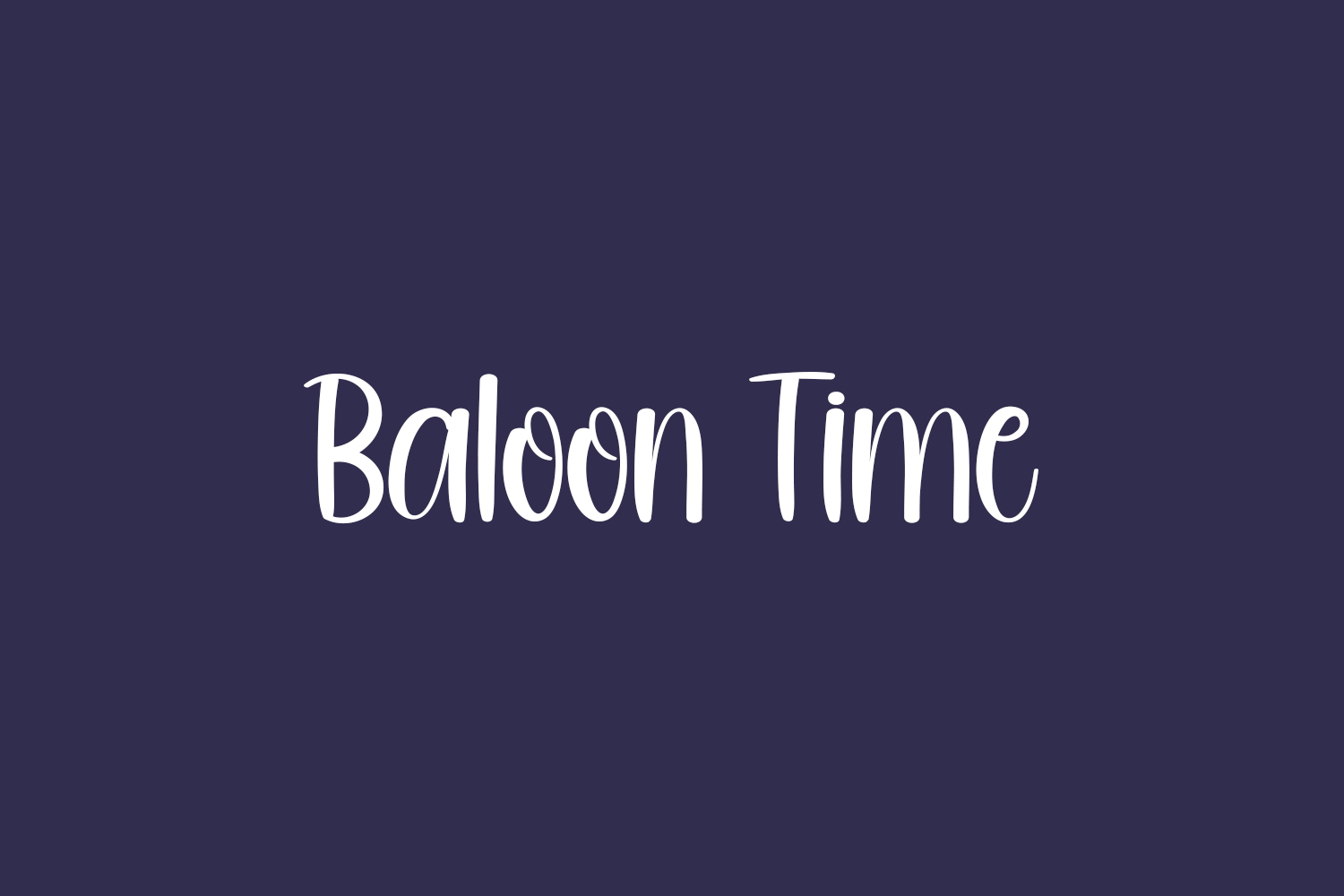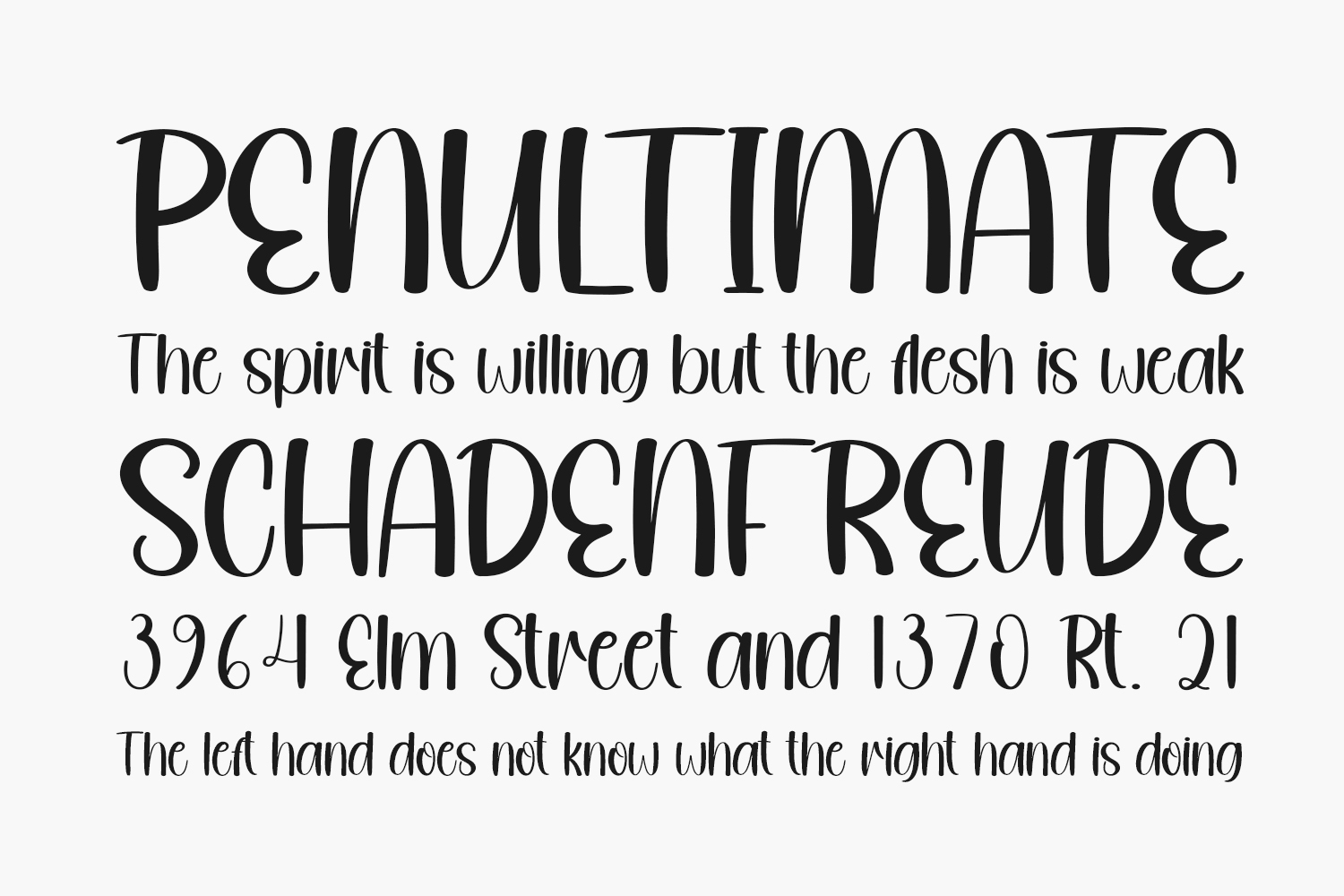
Baloon Time is a charming and playful handwritten font designed by Andi Moz with sweet, rounded strokes that bring a lighthearted and informal vibe to your design projects. This free display typeface mimics natural hand-drawn lettering — making it perfect for children’s books, greeting cards, party invitations, and any design needing a cheerful, friendly tone. Available in OTF format with support for uppercase letters, numerals, punctuation, and basic special characters, Baloon Time is ideal for designers seeking a whimsical, hand-crafted style.
Why Choose Baloon Time?
- Playful & Friendly Style: Rounded shapes and soft curves create a warm, childlike appearance.
- Ideal for Kids’ Projects: Perfect for storybooks, coloring pages, or educational materials.
Where to Use Baloon Time?
Baloon Time brings charm and personality to design projects like:
- Children’s Books: Adds personality to book titles, character names, or illustrations.
- Birthday Invitations: Perfect for party flyers, baby showers, or school event announcements.
- Greeting Cards: Brings warmth and charm to birthday cards, thank-you notes, or handmade gifts.
- Apparel & Merchandise: Great for T-shirts, tote bags, mugs, or nursery wall art.
- Social Media Graphics: Ideal for Instagram Stories, Pinterest quotes, or TikTok videos with a fun, casual tone.
Design Tips with Baloon Time
To get the most from Baloon Time, pair it with clean sans-serif fonts like Rather or Tommy for contrast and readability. Use this font at large sizes to highlight its expressive strokes and rounded shapes. For print work, apply it to pastel backgrounds or combine with cartoon-style illustrations to enhance its playful appeal. Try our interactive font preview tool below to test Baloon Time with your own text before downloading!